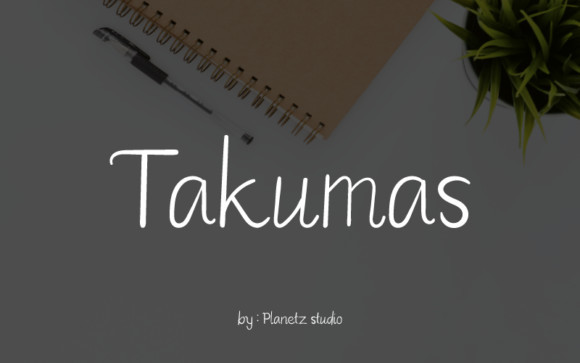
Takumas Font
Takumas is an authentic and well balanced handwritten font. Its flowing and relaxed style makes it incredibly fit for a wide variety of designs. Use this font to elevate your most creative ideas!